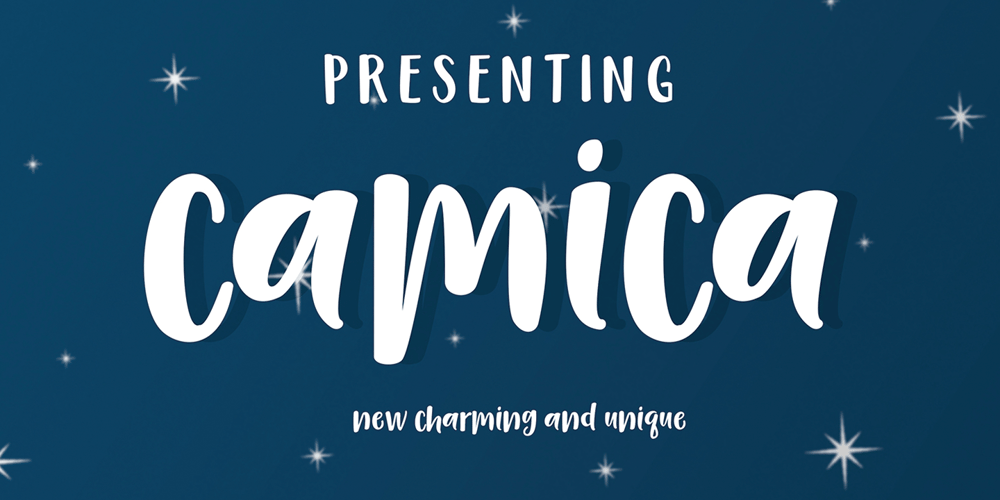
Camica Font Family was designed by Bustami Harun and published by Genesislab. Camica contains 1 styles and family package options. Camica font with simple models of natural and comic, with a font, you can take advantage of the opportunity at any time one wonderful way to highlight the celebration of the feast of your best, because these fonts will be a driving force for purposes such as cover design, wedding invitations, party , graduation, birthday, gathering, etc.Use the format below.Font Camica if you want to use for your work this font can be used to easily and simply because there are a lot of features in it contains a complete set of letters lower and uppercase letters, assorted punctuation, numbers, and multilingual support.if you have a problem? Contact me: genesislabstudio@gmail.com